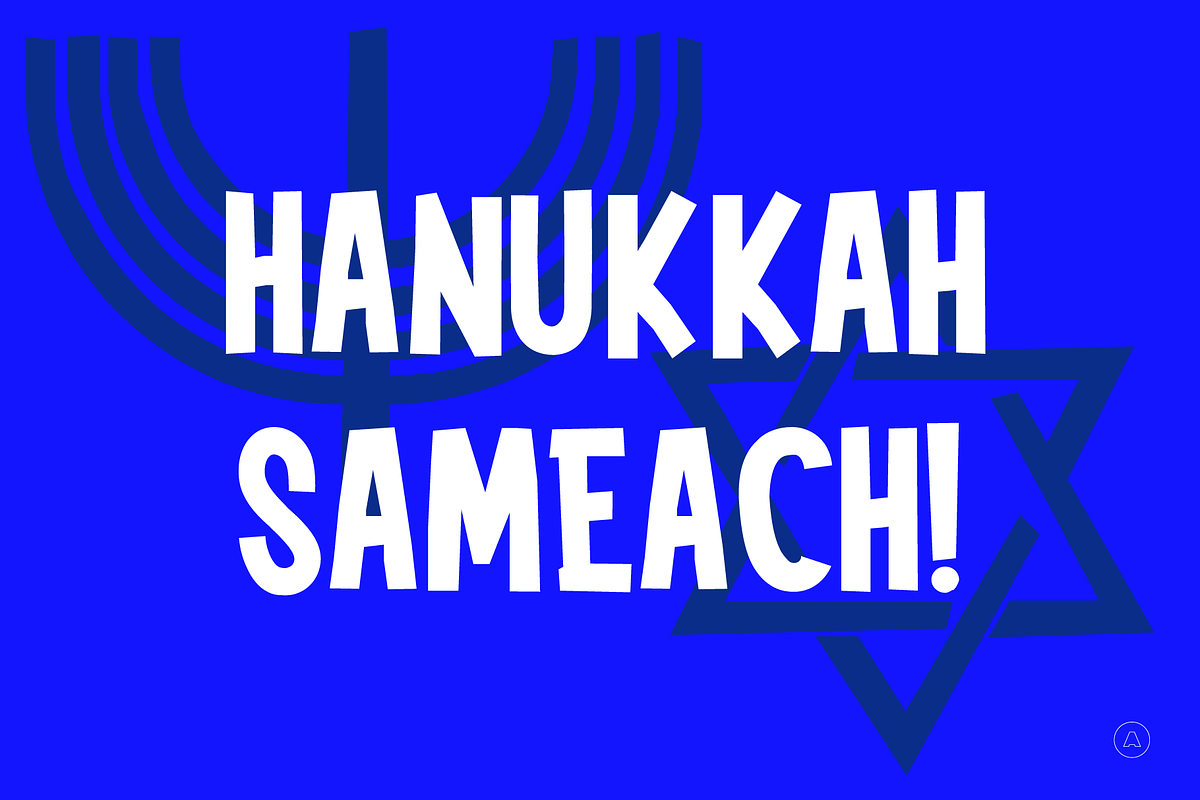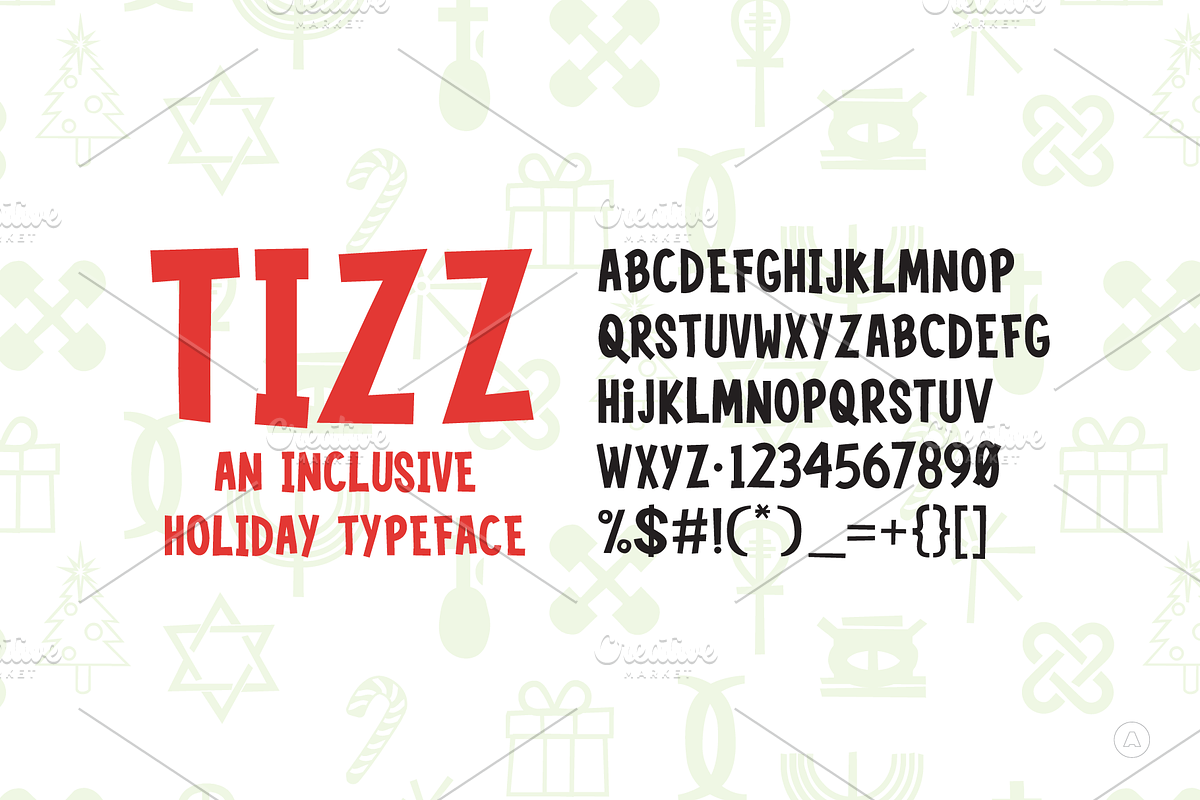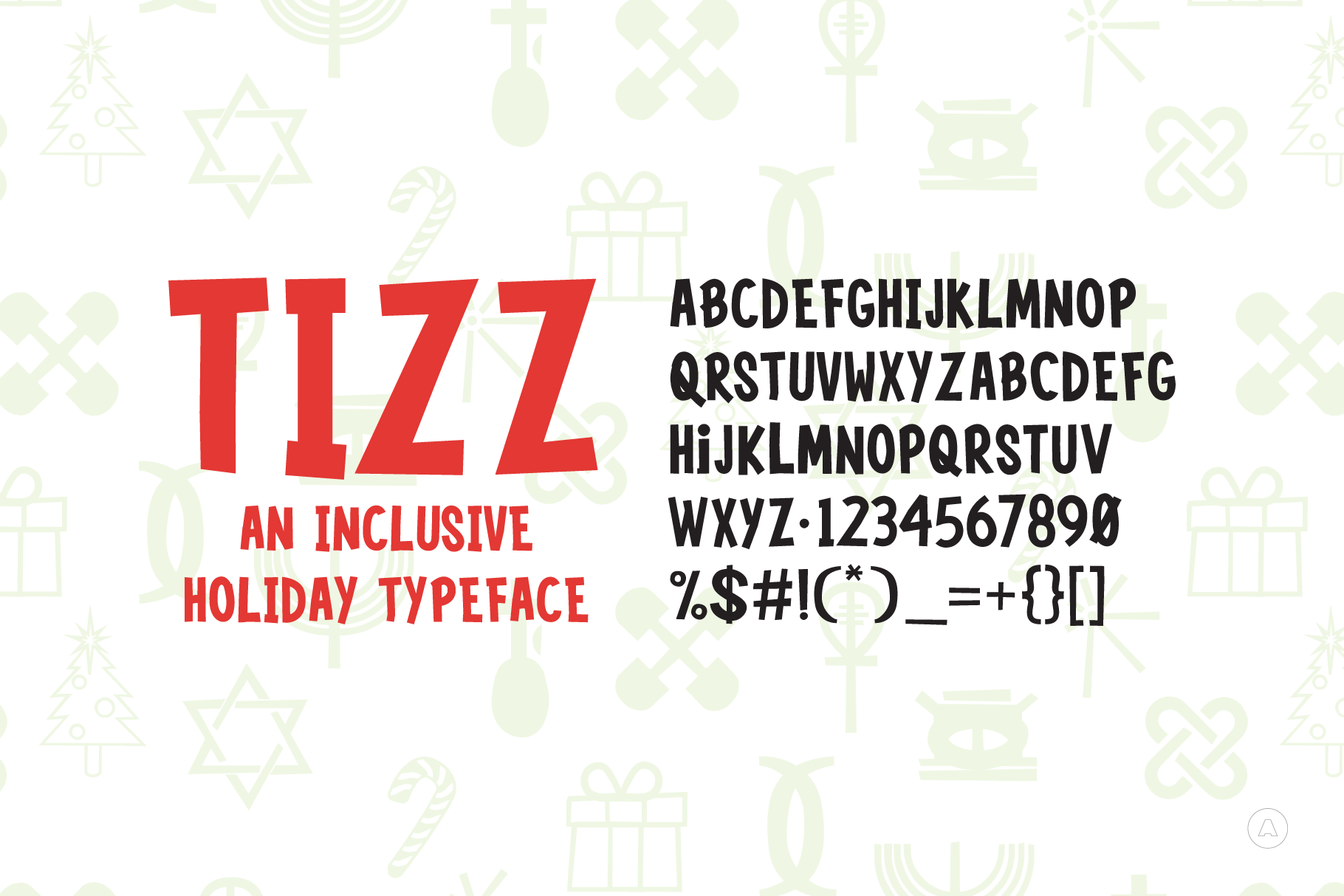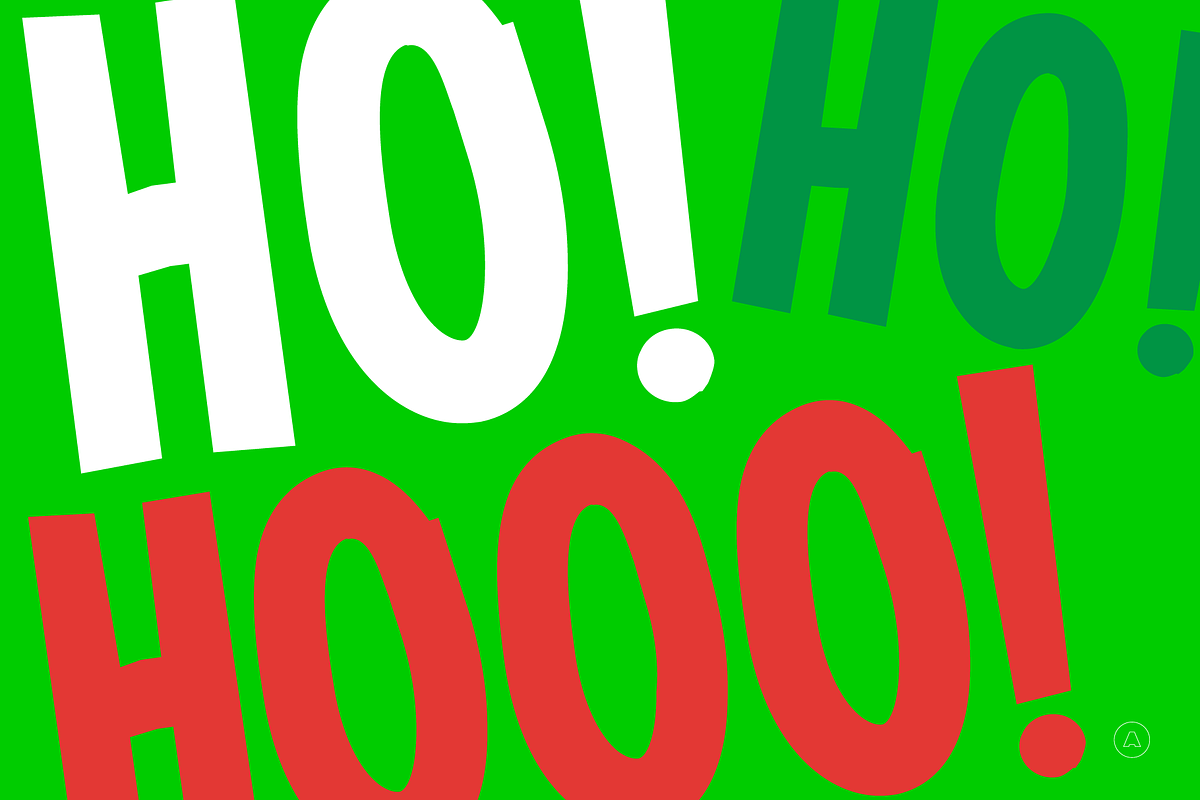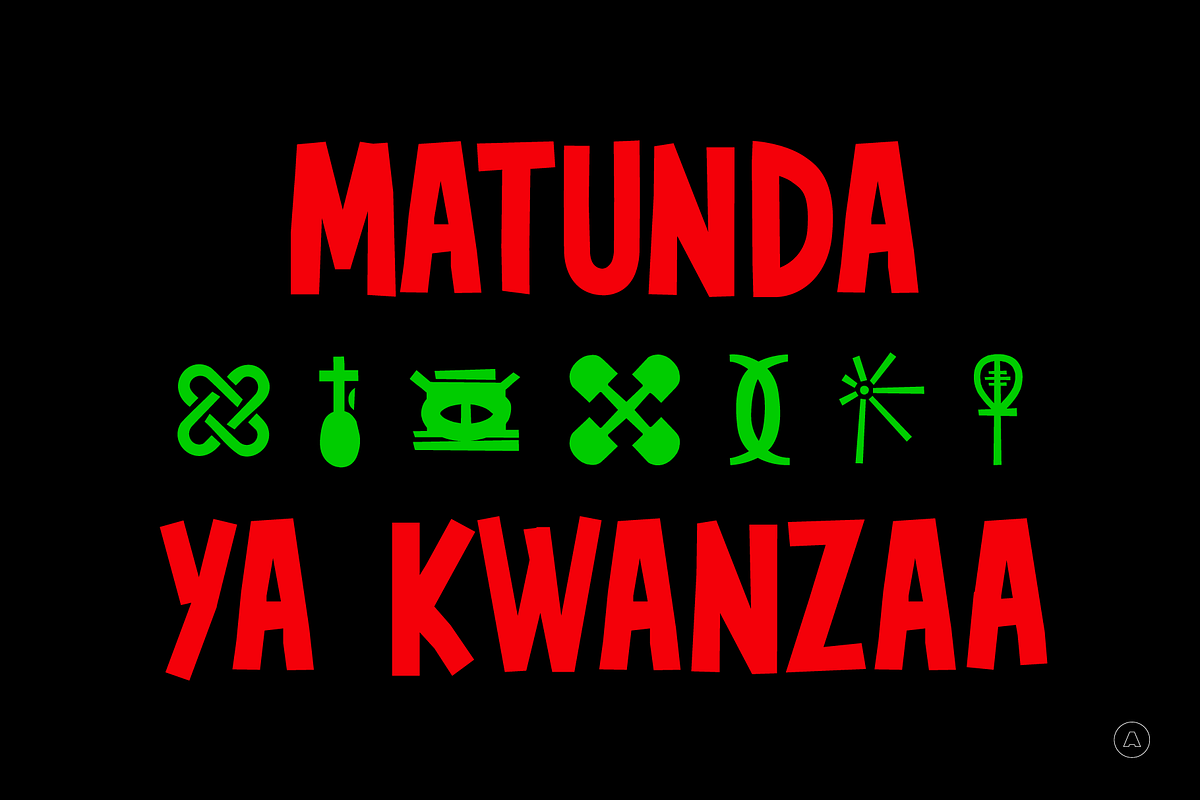
Tizz Holiday Font
Tizz is for the seasons. While this typeface can be used for almost any situation this was created with the holidays in mind. There are glyphs for Hanukkah, Kwanza, and Christmas. This font is a display all-caps typeface with alternates living in the upper and lower cases.